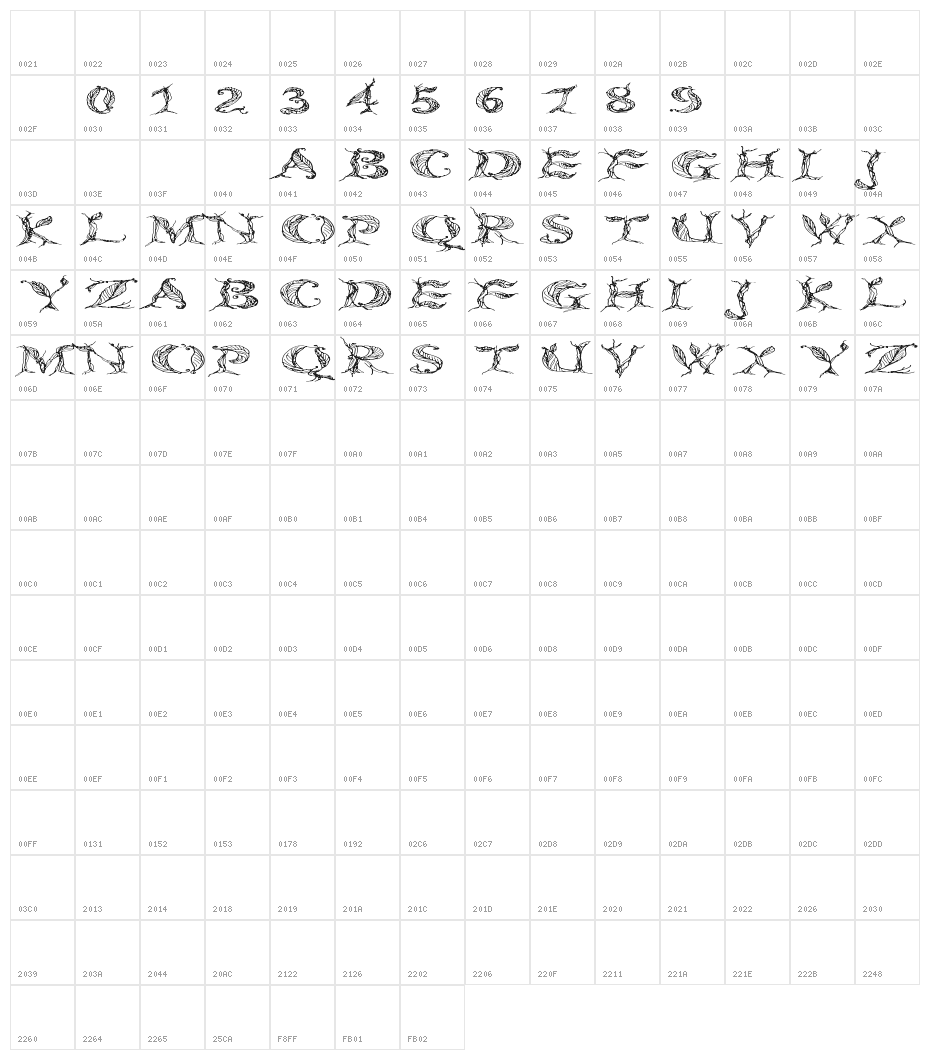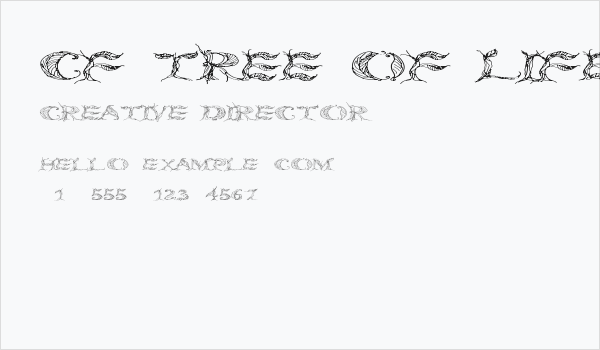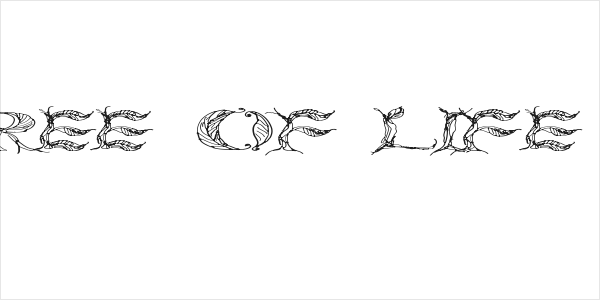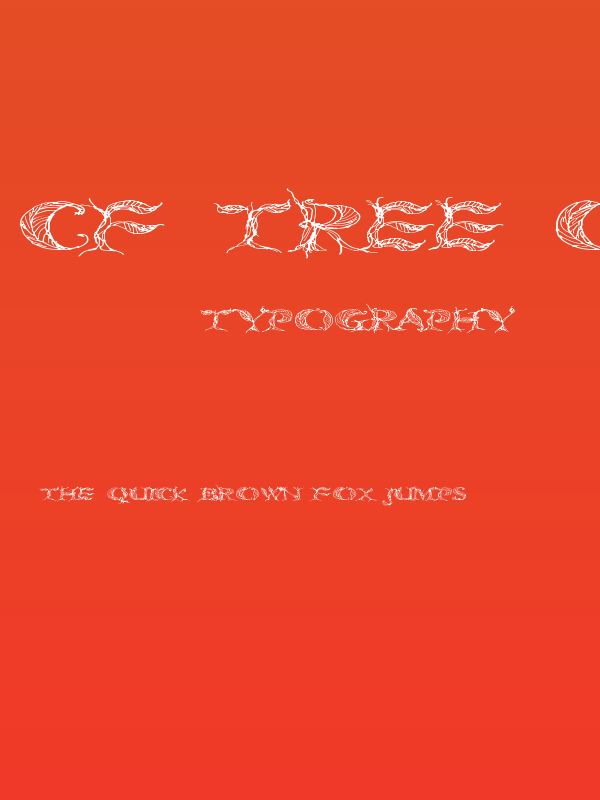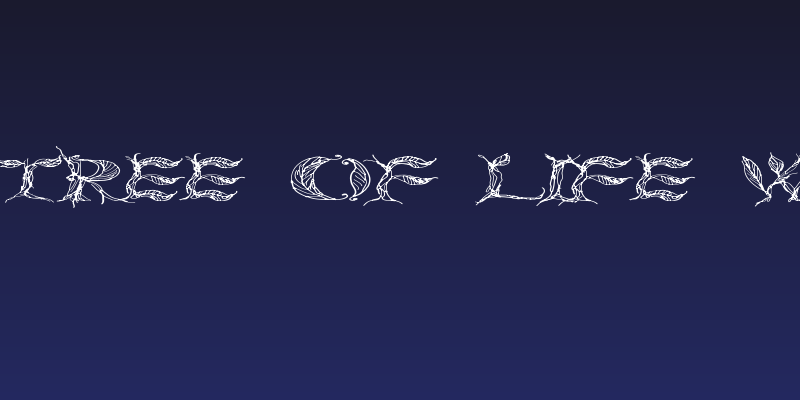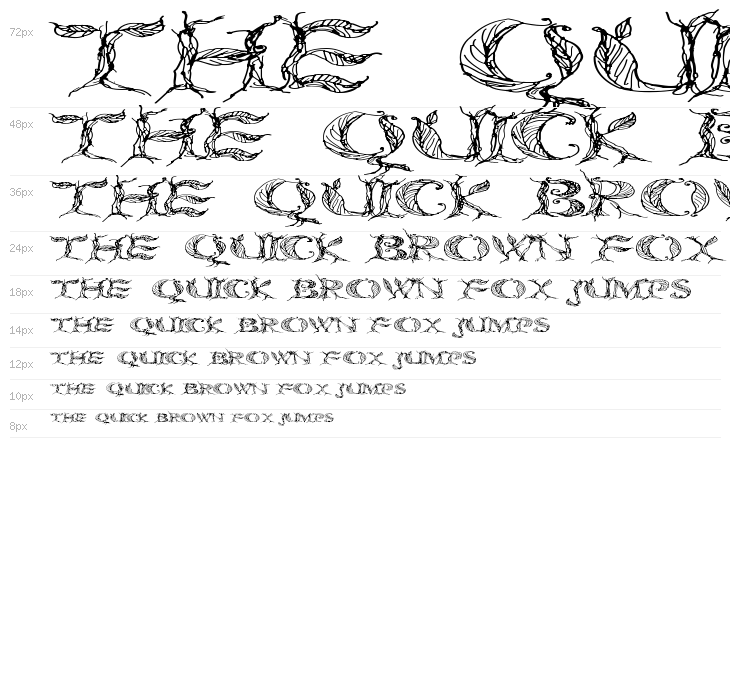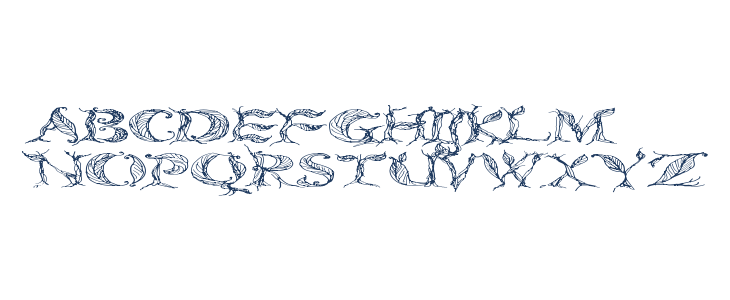
CF Tree of Life Wide Font
CF Tree of Life Wide Description
This font features an intricate and decorative design, with each character resembling intertwined branches or vines. The letters have a natural, organic feel, with detailed curves and flourishes that give them a unique, artistic appearance. The design is consistent across uppercase, lowercase, and numerals, maintaining a cohesive style. The font's elaborate detailing makes it stand out, suitable for projects that require a touch of nature or fantasy. Its complexity suggests a decorative use rather than for body text, as the intricate details might affect readability at smaller sizes.
| Proposed Projects | Ideal for fantasy-themed projects, nature-inspired designs, book covers, or artistic posters. |